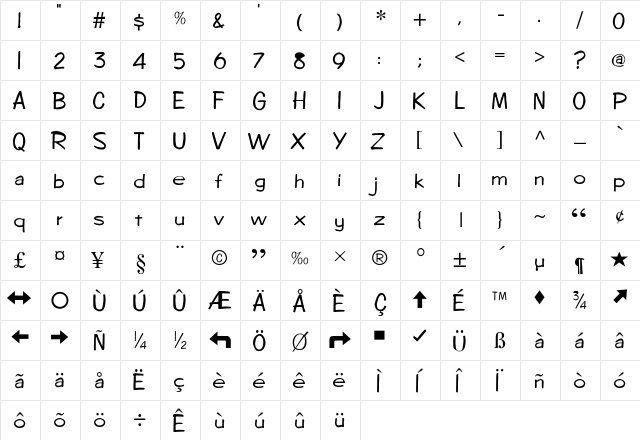
DiegoCaps
Design Context for DiegoCaps Typeface
DiegoCaps takes a measured approach to typography — its balanced proportions and neutral character make it a reliable workhorse for both digital and print work.
Pro Tip: Use DiegoCaps in both headline and body roles to test its range before committing to a single application.